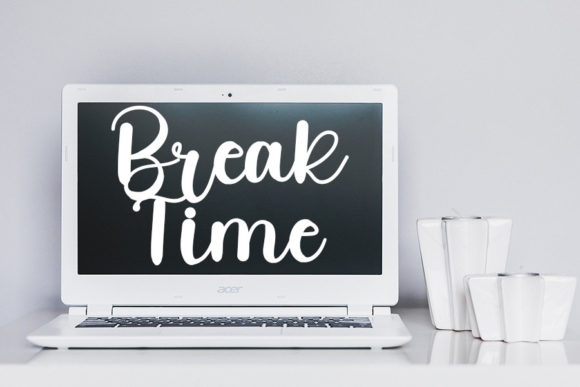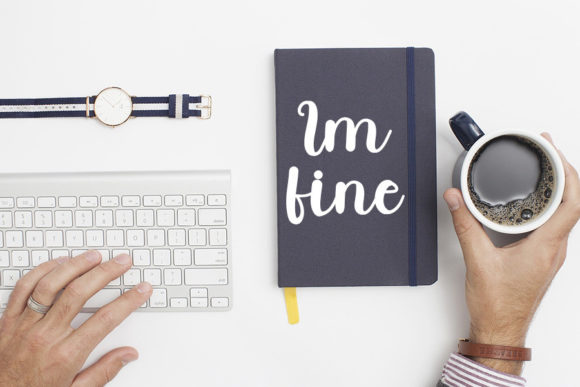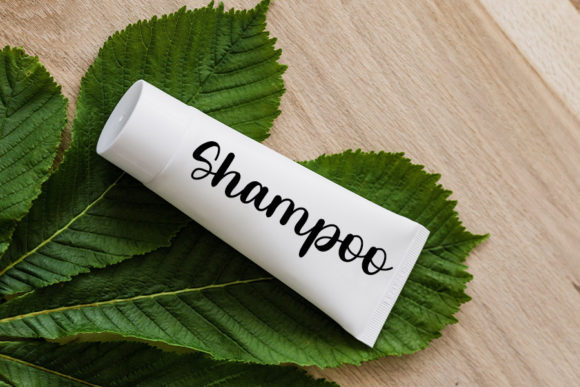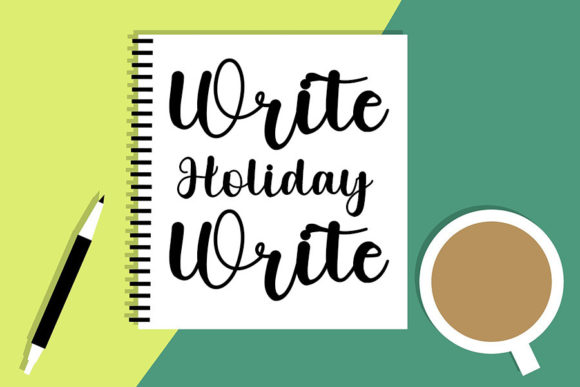
Coffeelate Font: Elevate Your Designs with Elegance and Sophistication
In the world of typography, a well-crafted font can make all the difference in elevating your designs to new heights. For designers and crafters seeking a touch of elegance and sophistication, Coffeelate Font is an exquisite handwritten font that is sure to capture your heart. Masterfully designed to become a true favorite, Coffeelate strikes the perfect balance between classy calligraphic influences and a contemporary, fresh feel.
The Story Behind Coffeelate Font
Coffeelate Font is more than just a beautiful typeface; it’s a reflection of refined taste and attention to detail. Its creator poured their heart and soul into crafting a font that would not only stand out but also complement a wide range of design projects. Whether you’re working on a logo, branding materials, packaging, or digital content, Coffeelate Font is designed to bring a touch of luxury and sophistication to your work.
Key Features of Coffeelate Font
- Handwritten Elegance: Coffeelate boasts a beautiful, handwritten aesthetic that adds a personal touch to any project.
- Classy Calligraphic Influences: The font maintains a sense of tradition with its calligraphic roots, providing a level of sophistication that’s hard to achieve with standard fonts.
- Contemporary and Fresh: Despite its classic influences, Coffeelate feels modern and versatile, making it suitable for a wide range of design applications.
- High Versatility: From elegant headings and titles to more casual text, Coffeelate adapts seamlessly to different design needs.
Why Choose Coffeelate Font?
With so many fonts available, what sets Coffeelate apart? The answer lies in its unique blend of elegance, versatility, and the emotional connection it can help create with your audience. Here are a few compelling reasons to choose Coffeelate for your next project:
- Emotional Connection: The personal, handwritten nature of Coffeelate can help create a stronger emotional connection with your audience, making your message more relatable and memorable.
- Brand Differentiation: In a crowded market, standing out is crucial. Coffeelate’s distinctive style can help your brand or project stand out and leave a lasting impression.
Using Coffeelate Font in Your Projects
Integrating Coffeelate Font into your designs is straightforward. Here are some tips to make the most of this beautiful font:
- Pair it with Neutrals: Coffeelate’s elegance shines when paired with neutral backgrounds or colors. Try it with whites, creams, grays, or soft pastels for a sophisticated look.
- Experiment with Sizes: Coffeelate’s versatility means it works well in various sizes. Experiment with different sizes to create visual hierarchy and emphasis in your designs.
- Mix with Other Fonts: For added interest, consider pairing Coffeelate with complementary fonts. A clean sans-serif can create a nice contrast and add depth to your design.
Coffeelate Font is a stunning addition to any designer’s toolkit. Its unique blend of handwritten elegance, classy calligraphic influences, and contemporary freshness makes it the perfect choice for those looking to add a touch of sophistication to their projects. Whether you’re a seasoned designer or a crafty DIY enthusiast, Coffeelate is sure to inspire and elevate your designs. So why wait? Fall in love with Coffeelate and bring your projects to the highest levels of creativity and professionalism.